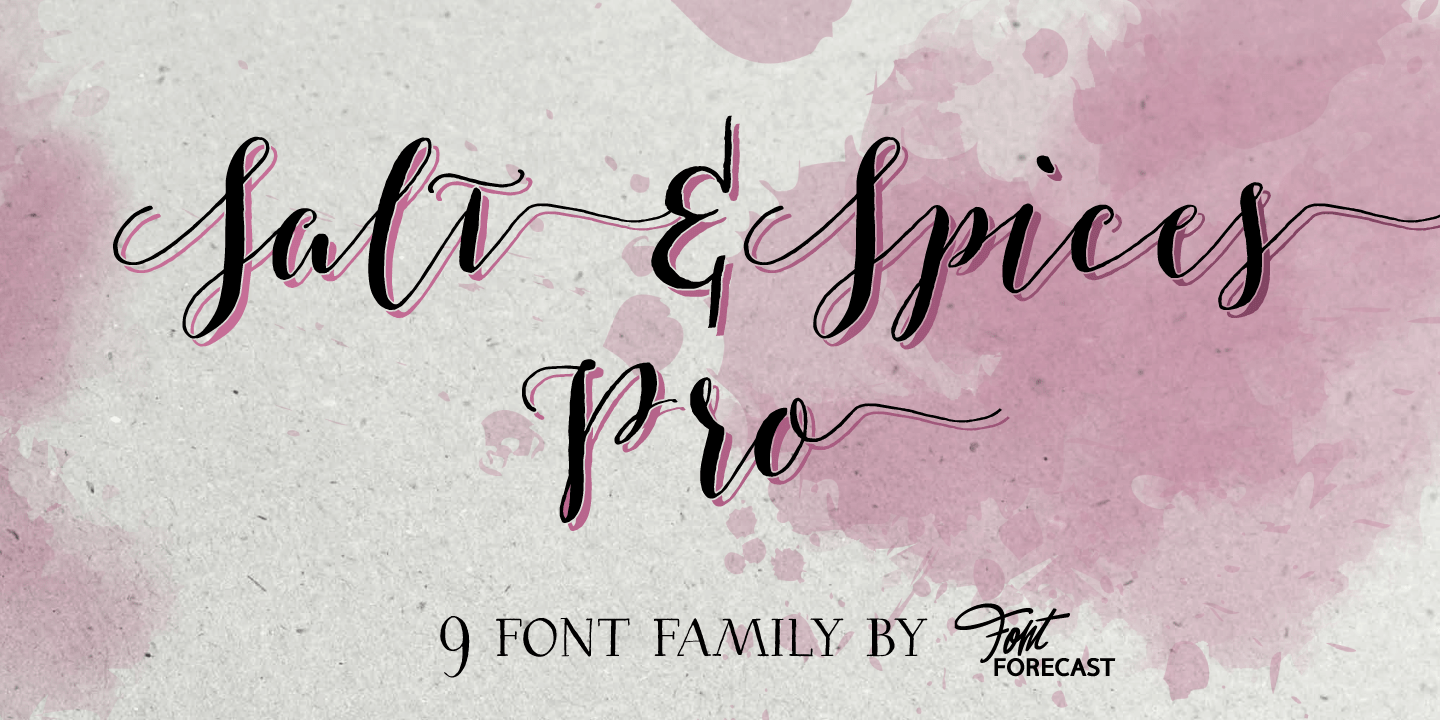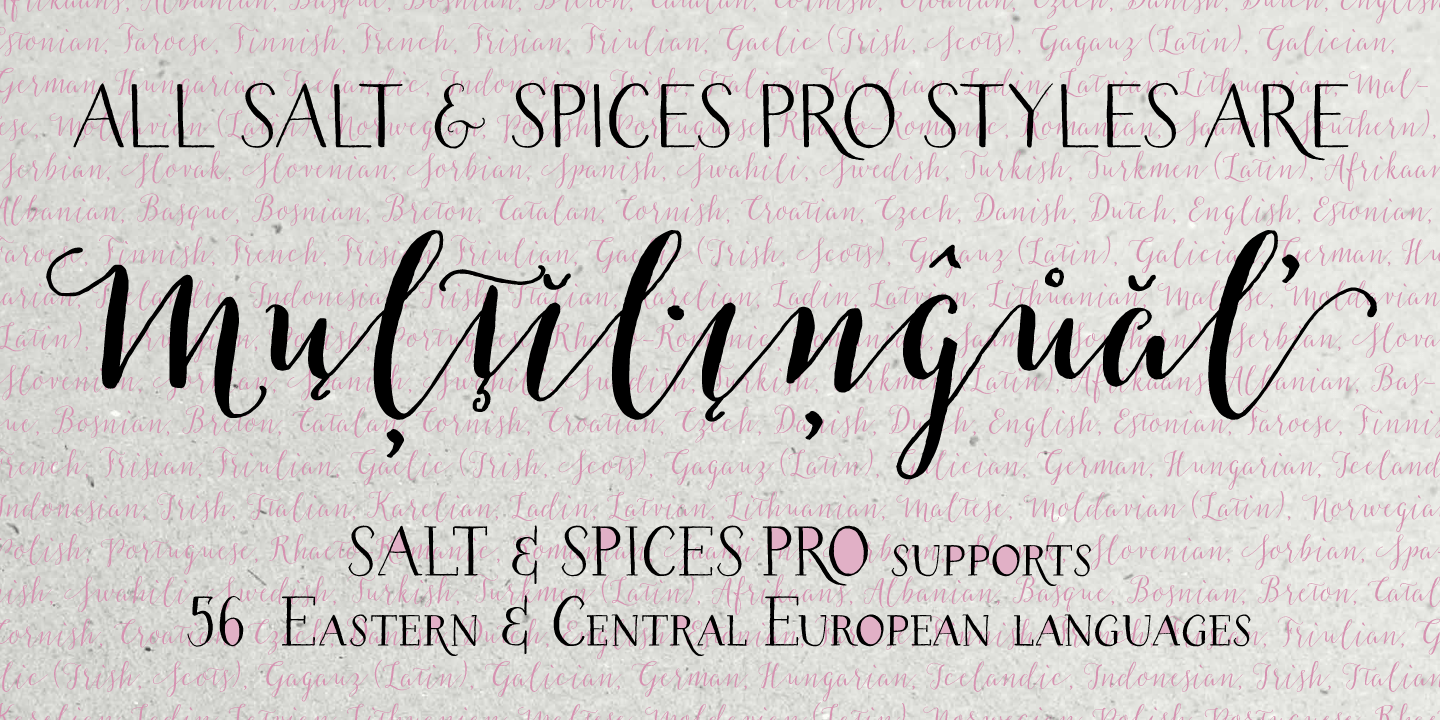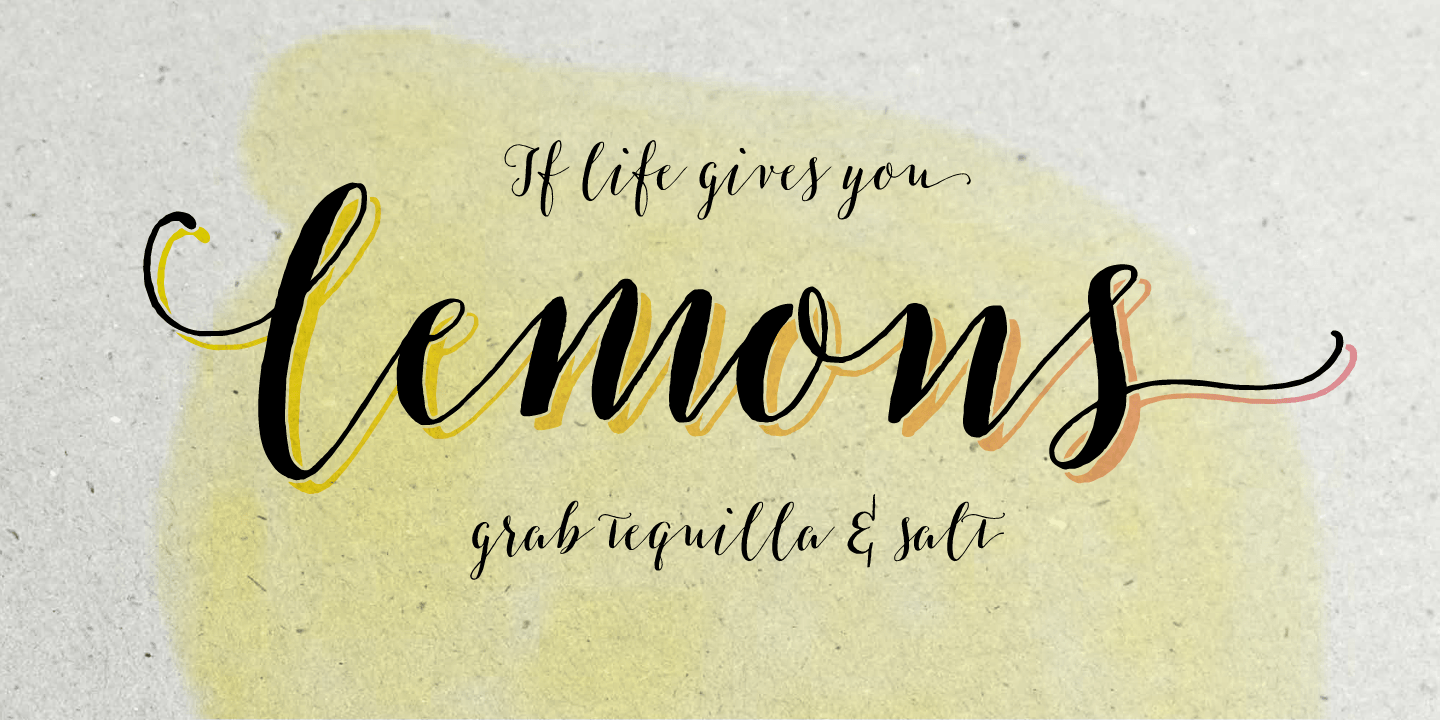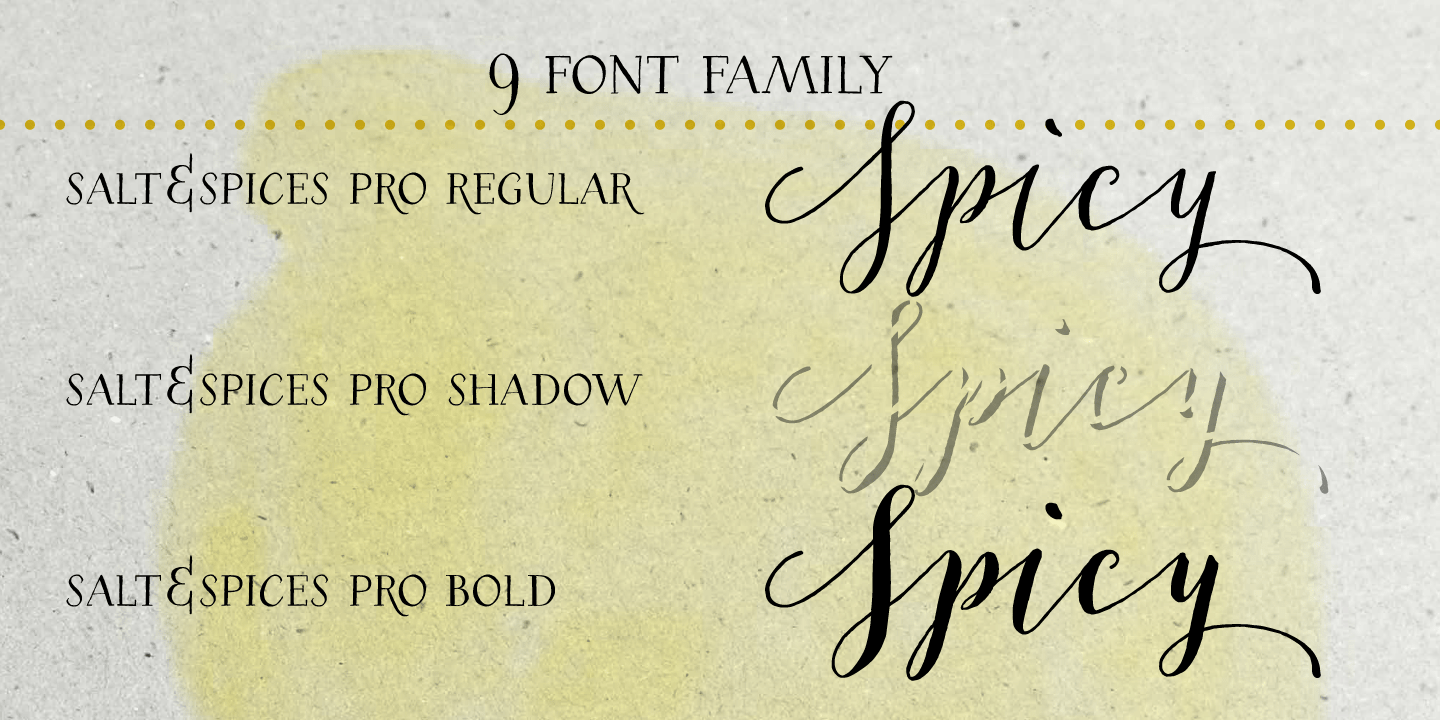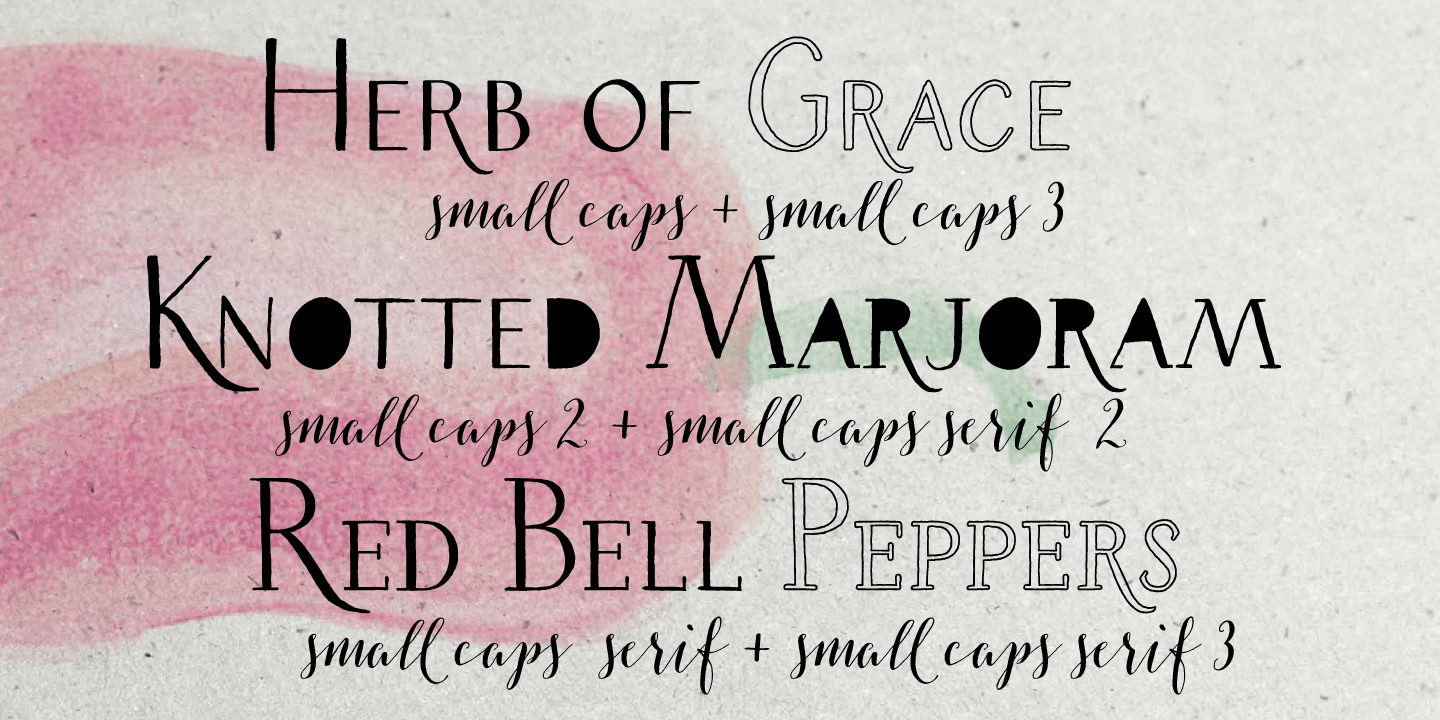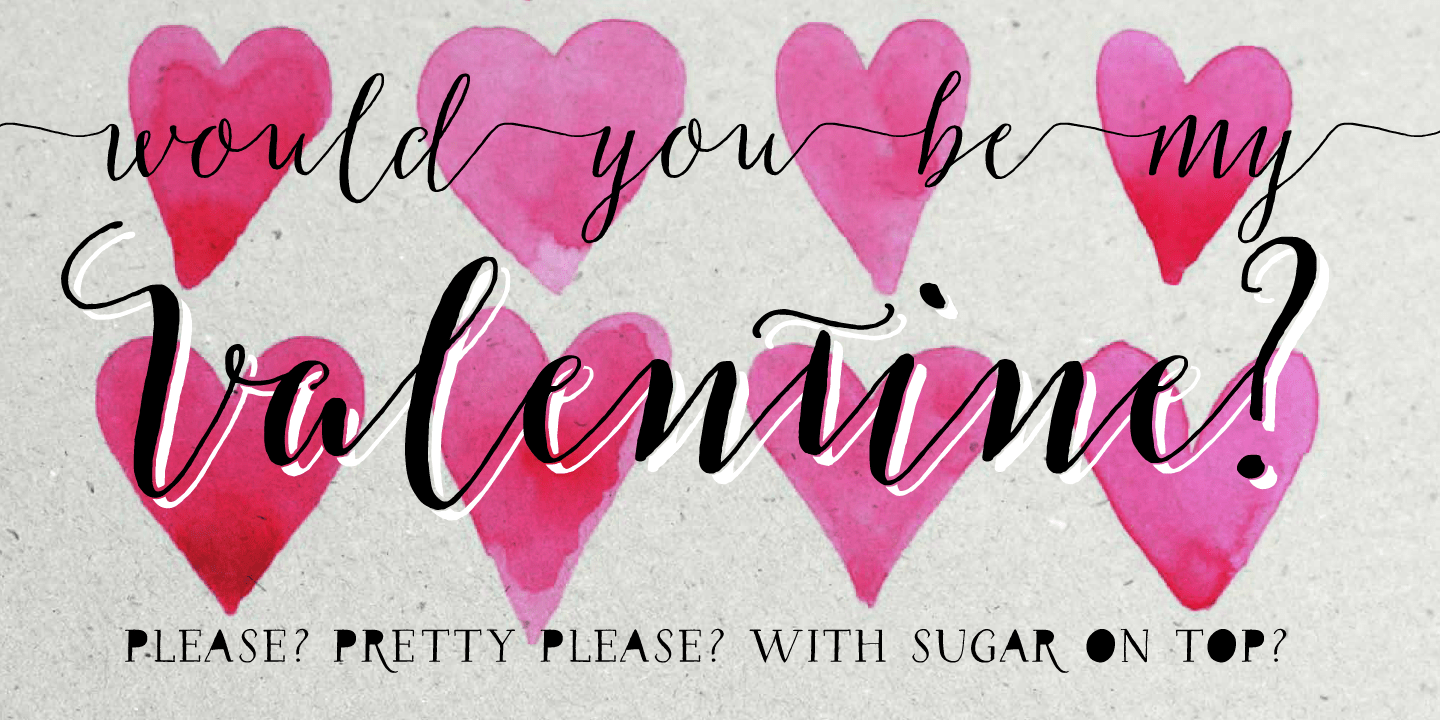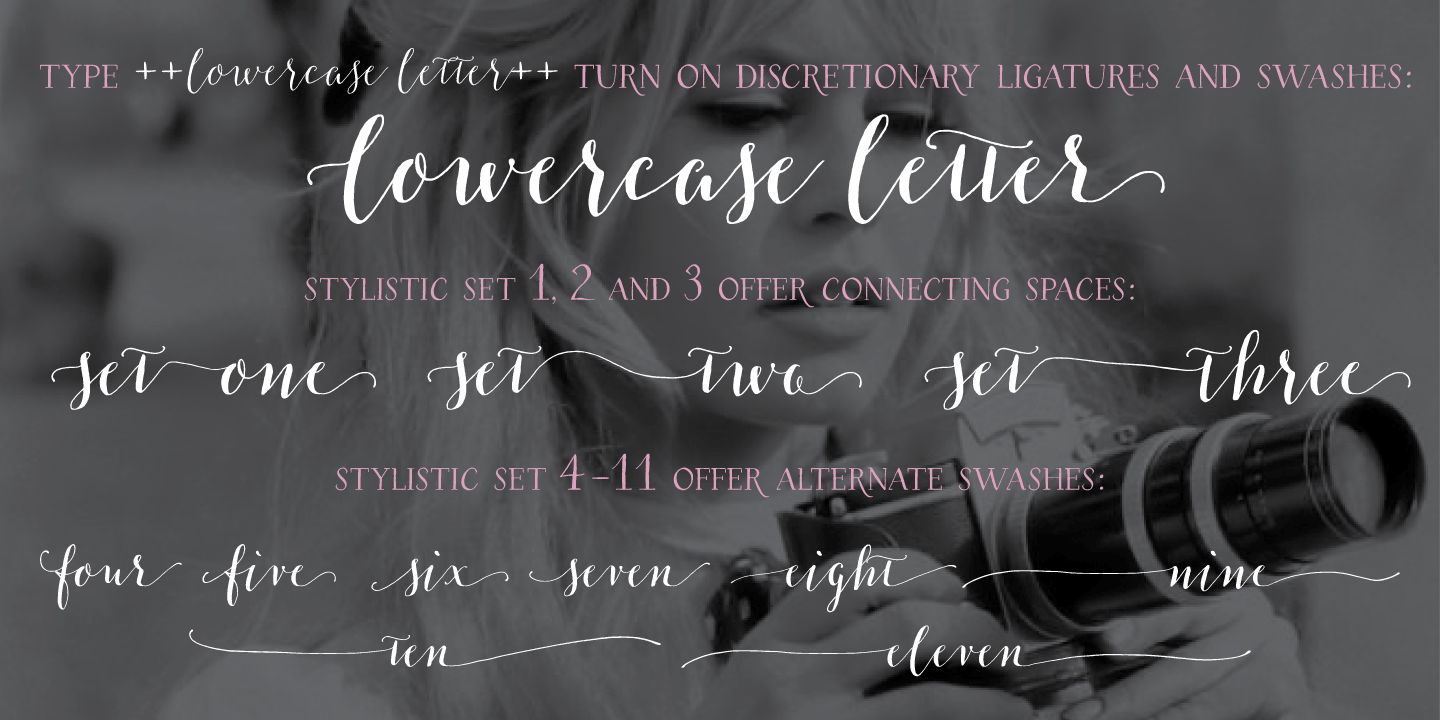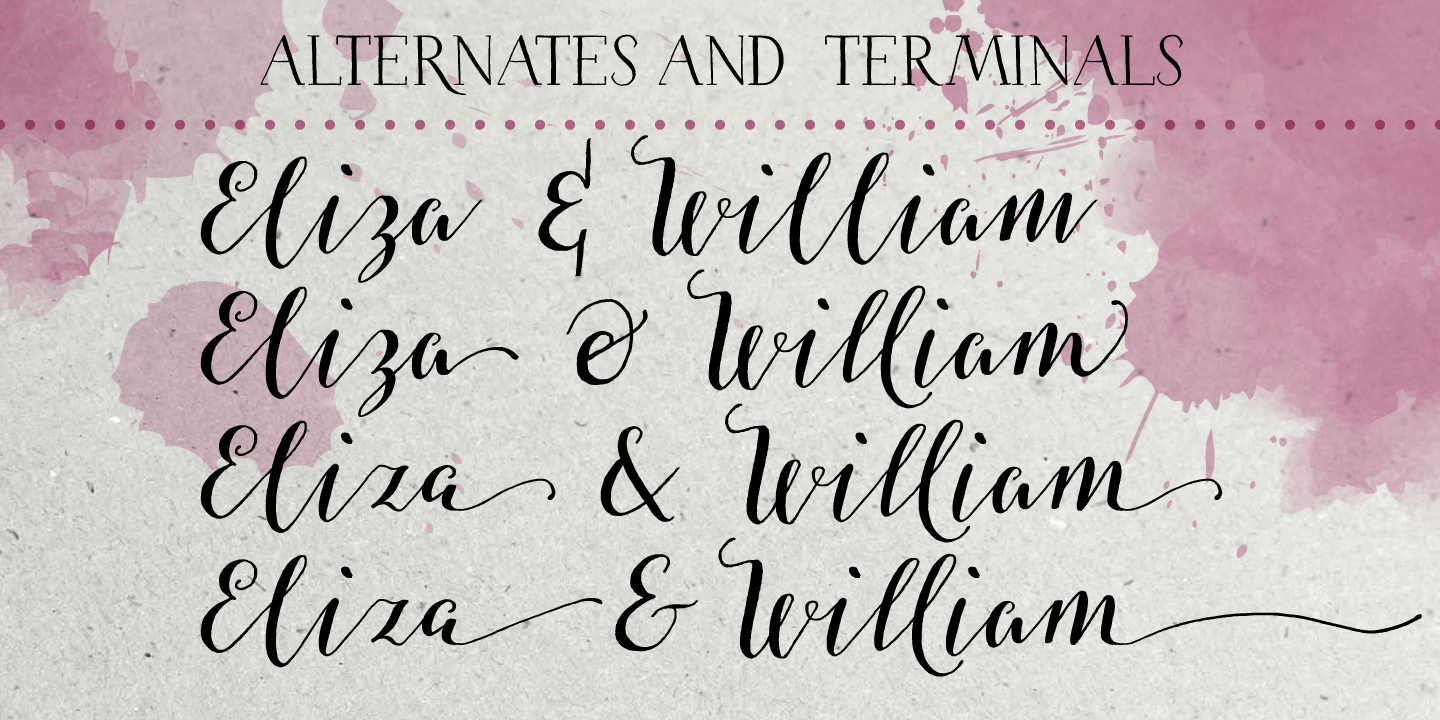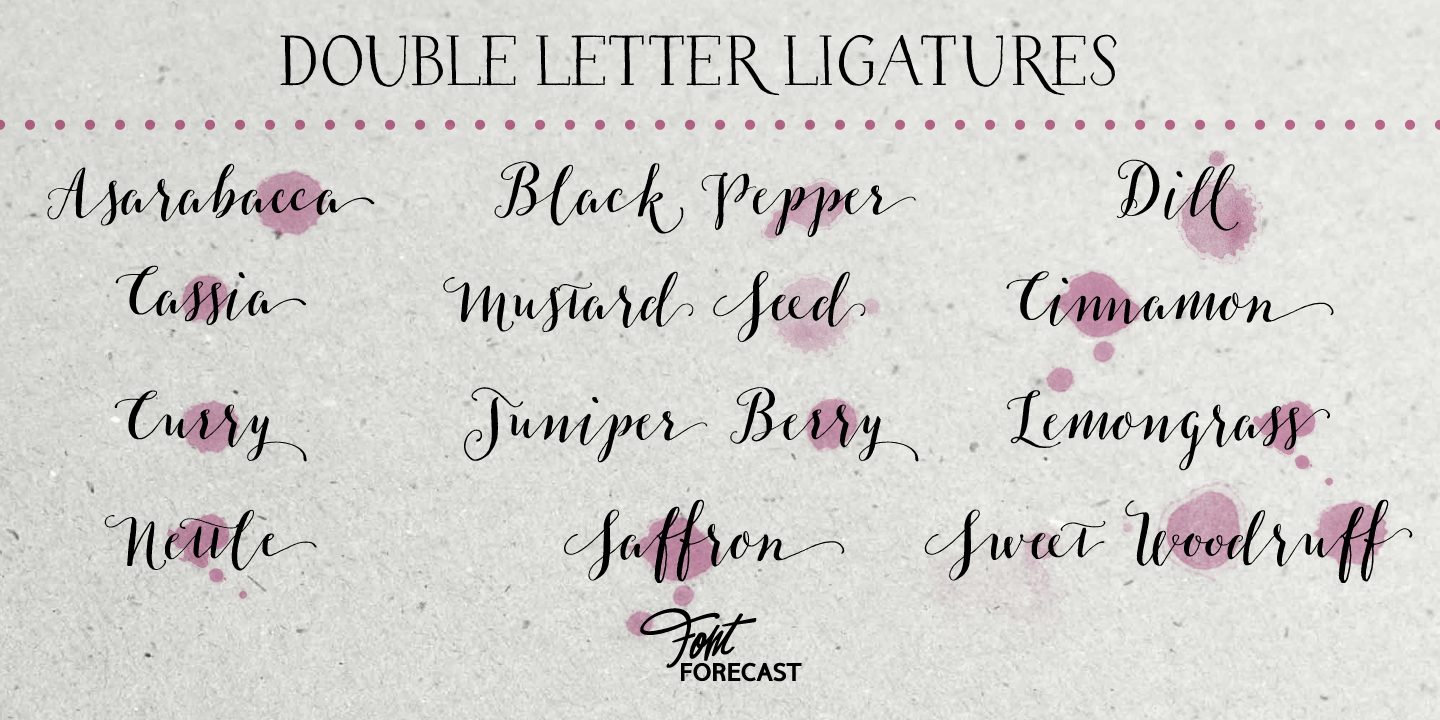
Salt & Spices Pro
Font Family by Font Forecast
Salt & Spices Pro is a very versatile 9 font family, consisting of 3 casual styles: Regular, Bold and Shadow. With 587 glyphs each, they offer great flexibility in customizing words and phrases to suit your personal taste. For instance: the appearance of initial and terminal letters can be customized using the glyph pallet. Contextual alternates, Swashes and Stylistic sets give you the ability to replace spaces by 3 alternate connecting spaces or add swashes to initial/terminal letters. Double letter ligatures help sustain the natural flow of handwriting.
In addition to the 3 calligraphic family members 3 Small Caps Sans styles and 3 Small Caps Serif styles were added. They all have 435 glyphs and match very well because they were designed using the same vintage nib. Each of the styles can add great variation to your designs and they supplement and support each other perfectly.